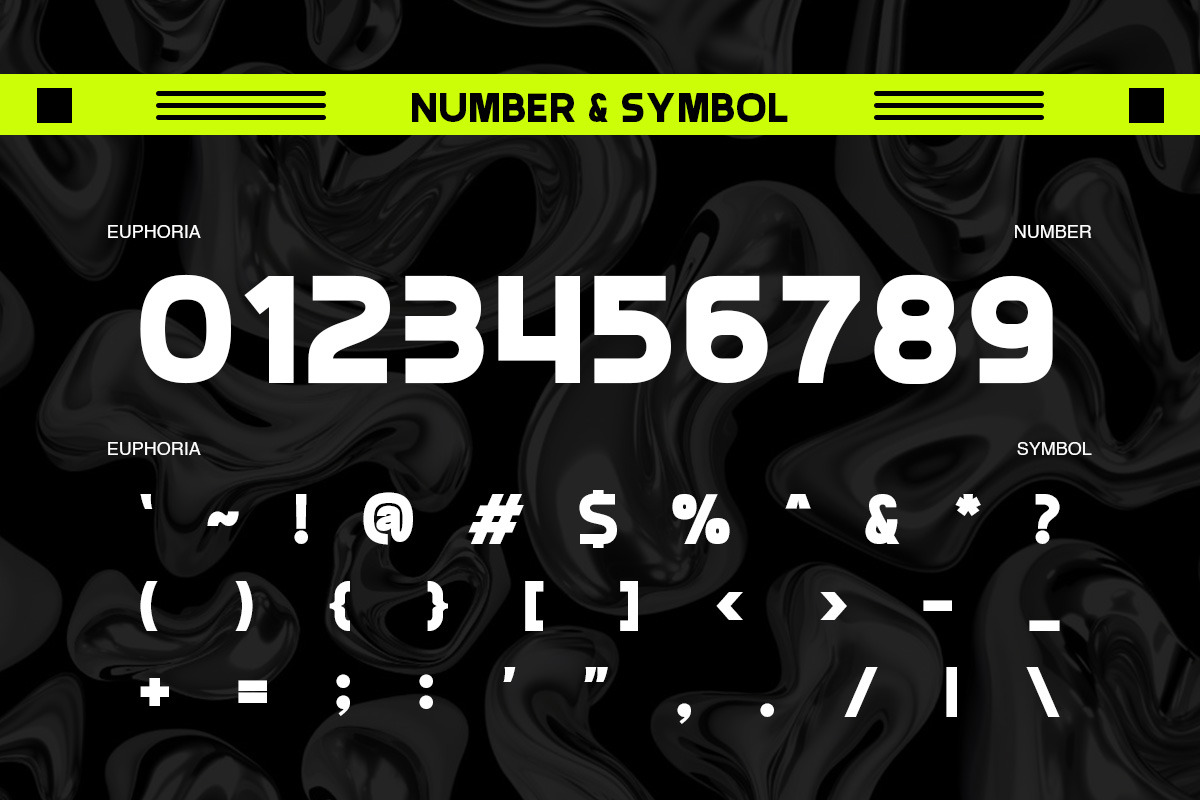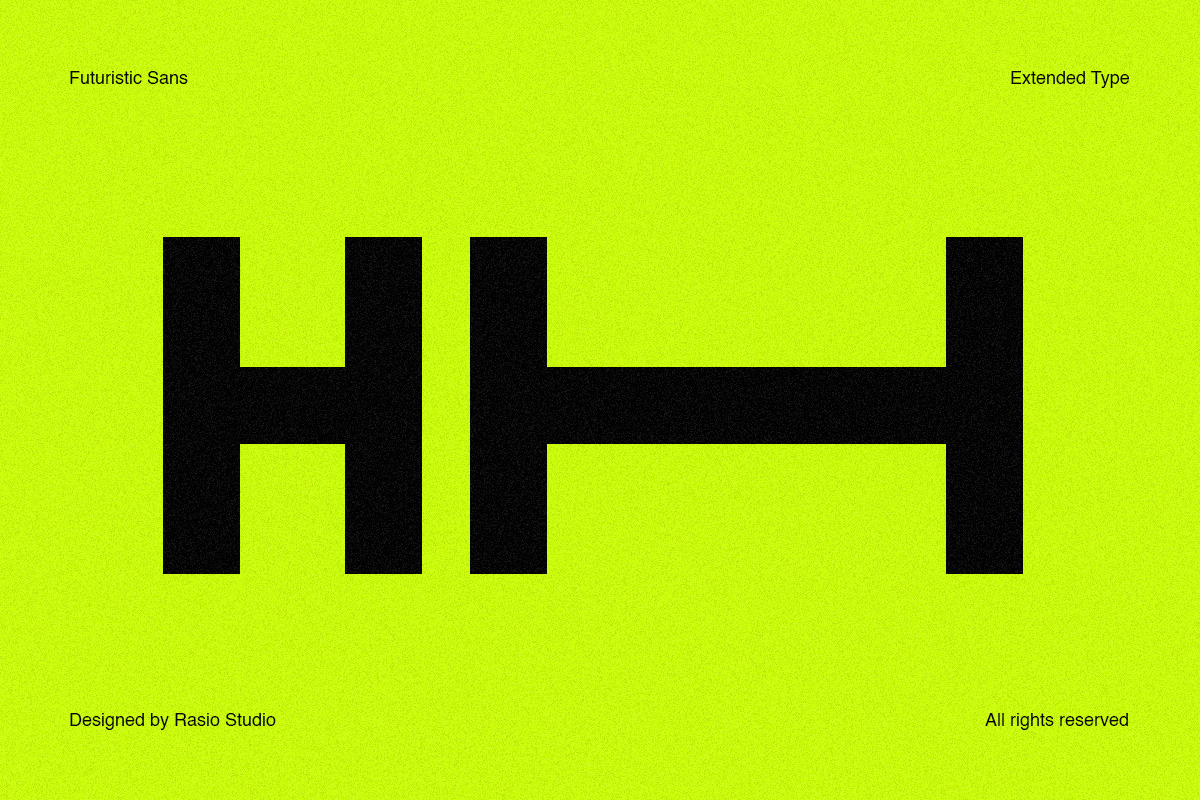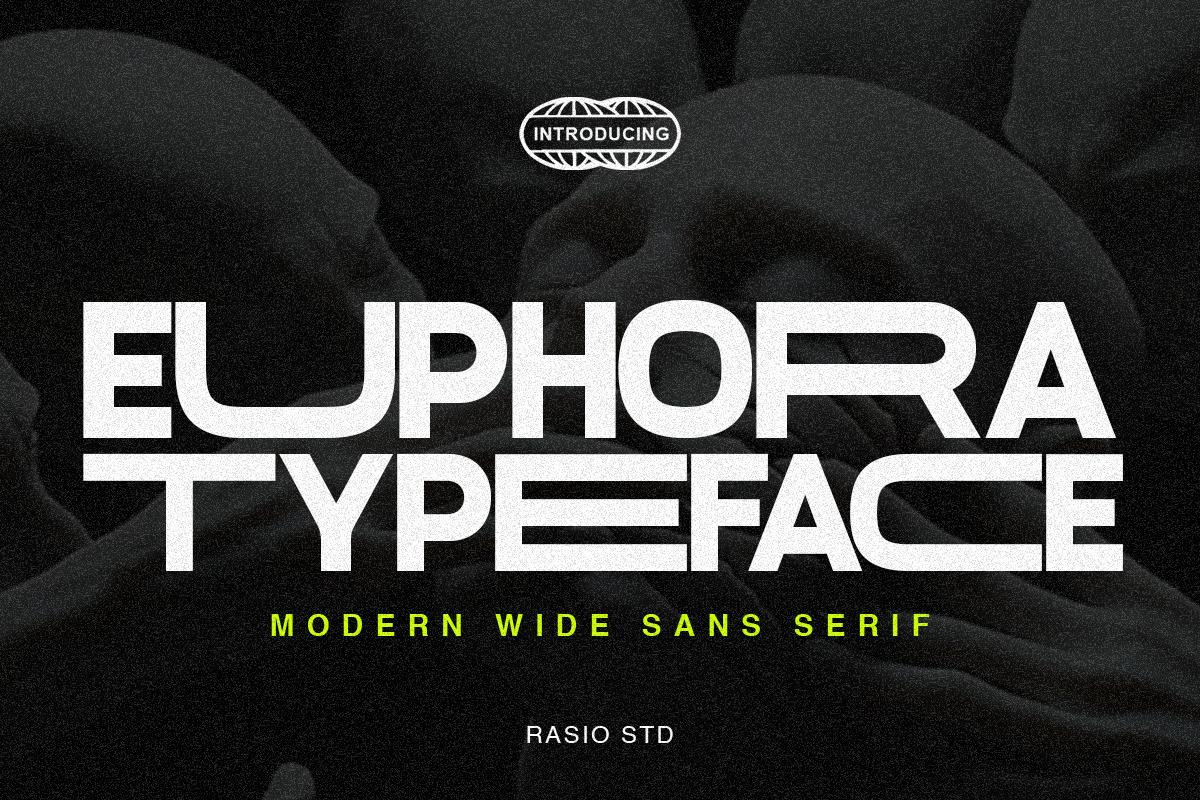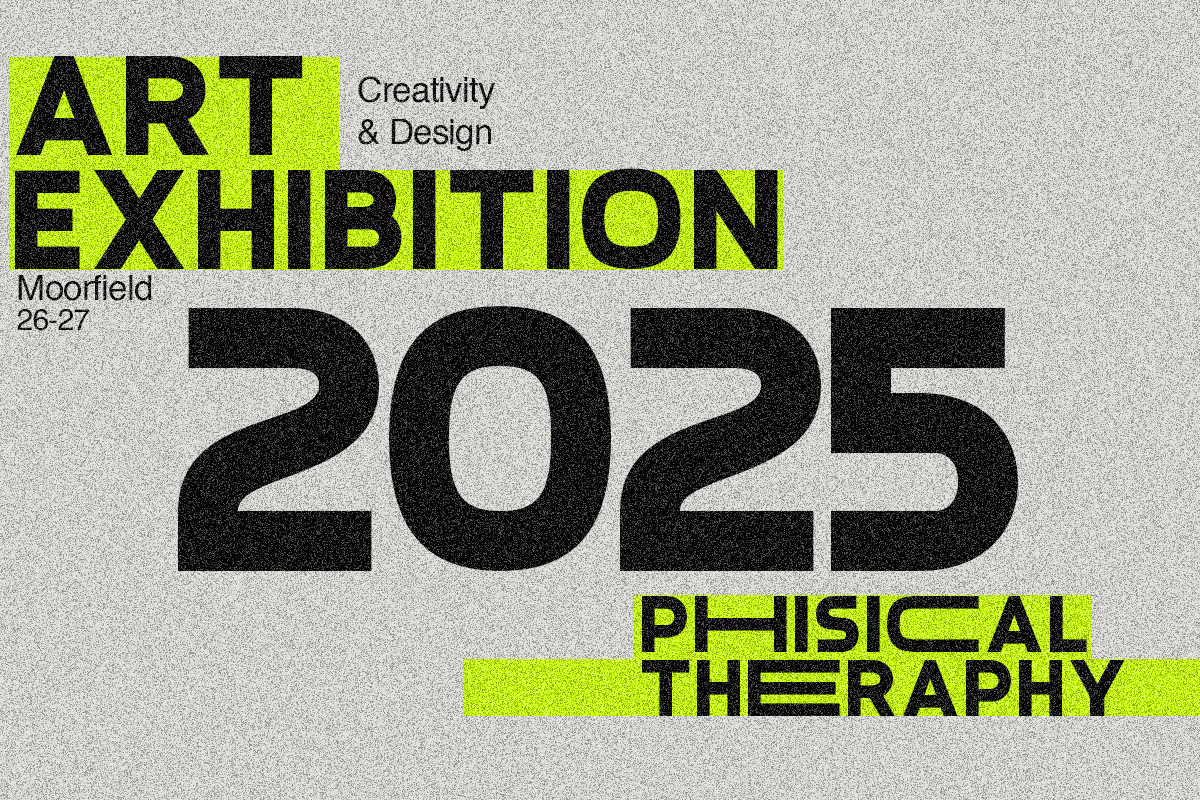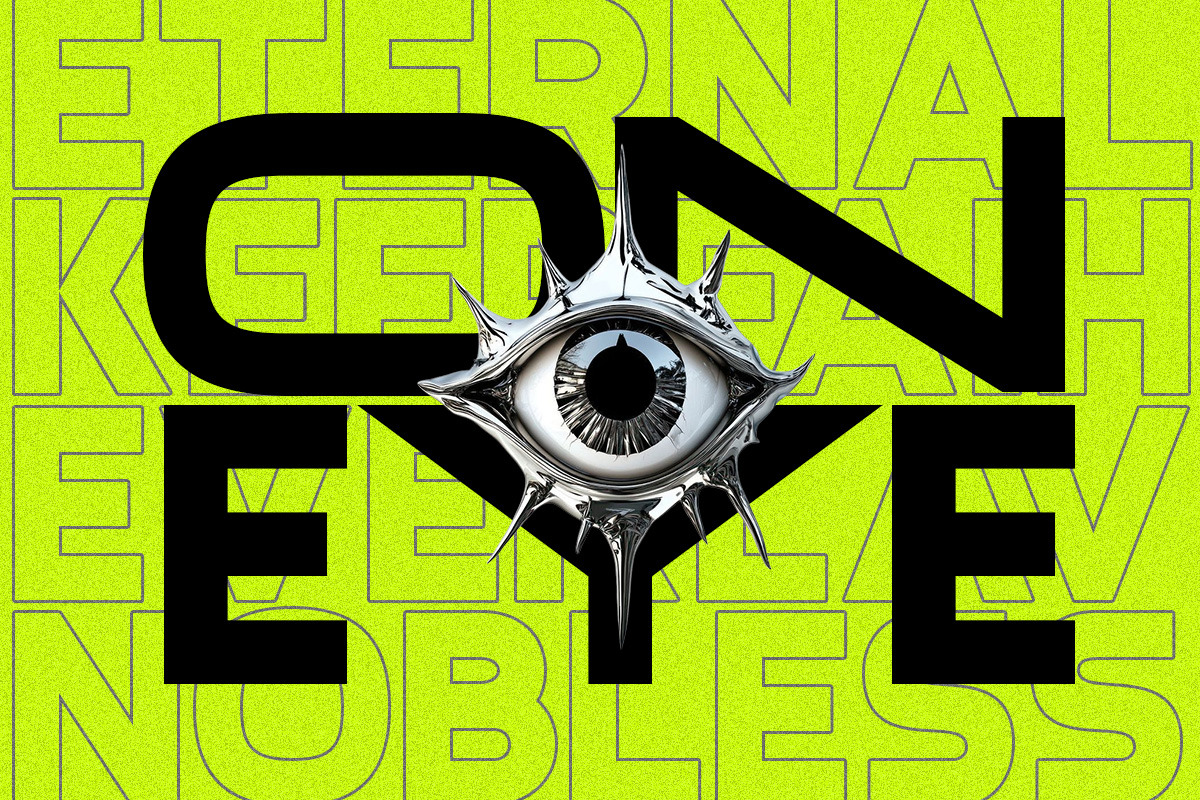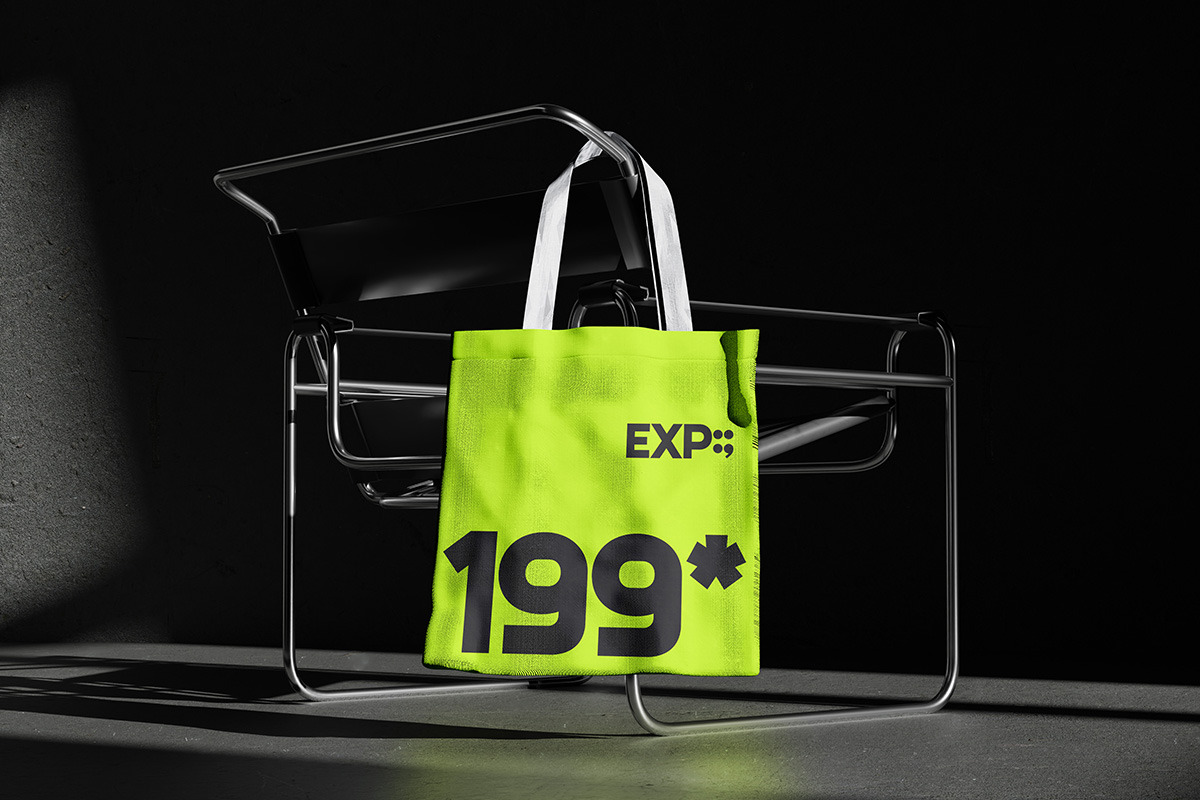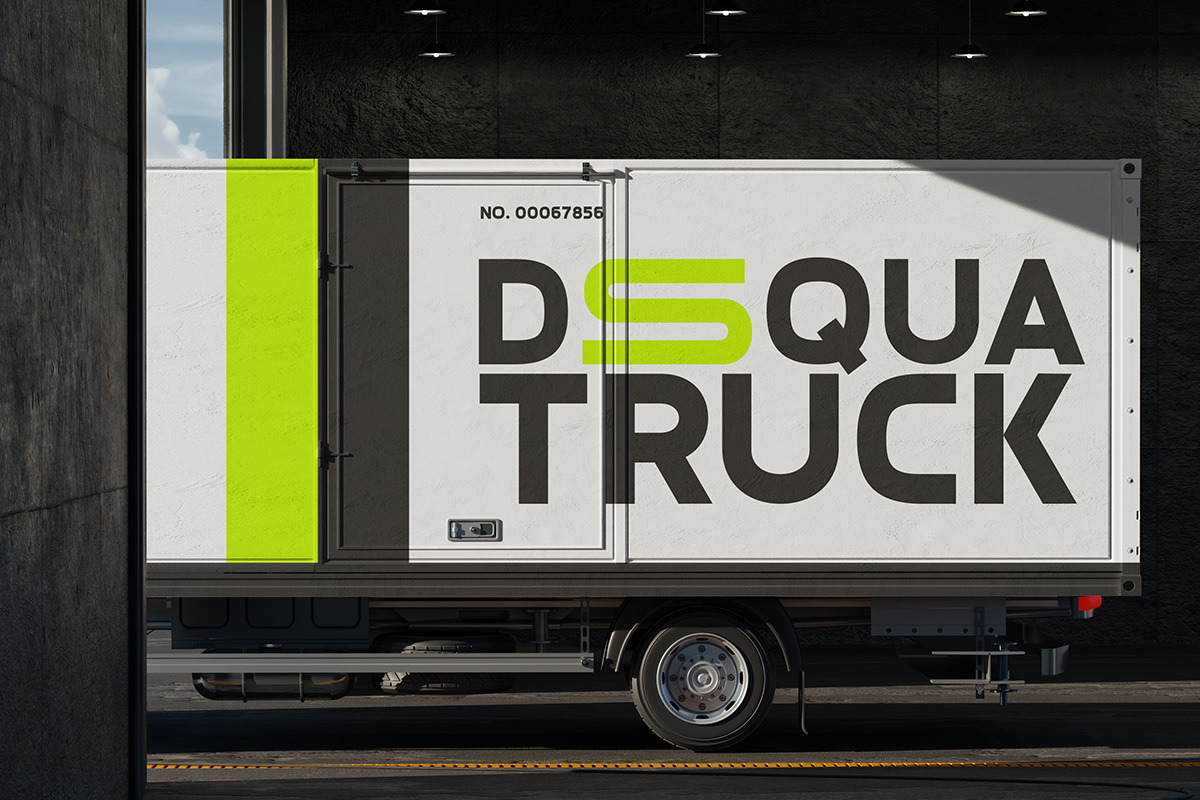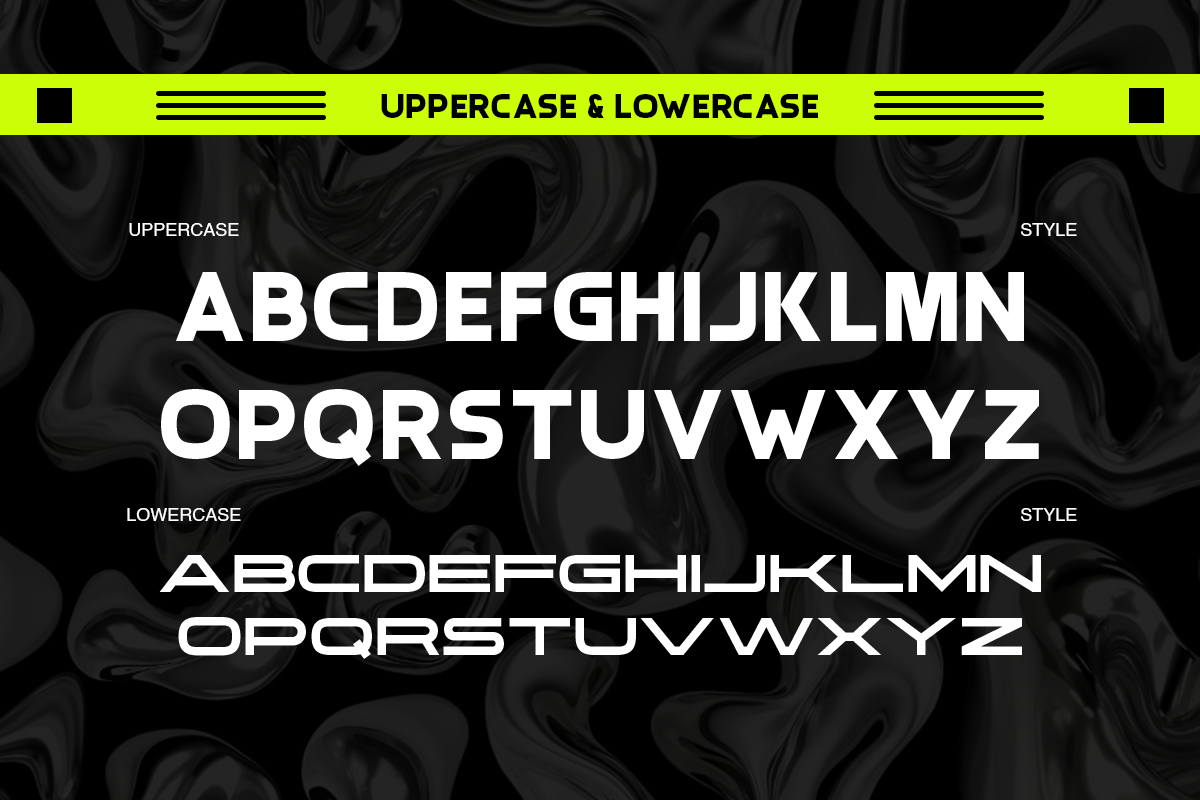
Euphora Typeface Wide Sans Font
Euphora is a modern wide sans serif typeface crafted for bold visual impact and futuristic expression. Designed with extended proportions, sharp geometric cuts, and strong horizontal emphasis, this typeface delivers a powerful contemporary presence. Its wide stance and confident letterforms make it ideal for large-scale typography, branding statements, and cutting-edge creative concepts.
Euphora is highly relevant for bold branding systems, tech startups, esports visuals, music posters, digital campaigns, fashion-forward graphics, and experimental editorial layouts. Its wide geometric structure makes it perfect for impactful headlines, logo design, album covers, promotional materials, and futuristic design concepts. Ideal for projects that demand strength, visibility, and modern edge.
- Modern wide sans serif with extended horizontal proportions
- Strong geometric construction with sharp, futuristic detailing
- Wide letterforms engineered for maximum headline impact
- Clean, uniform stroke weight for bold visual consistency
- Angular cuts and squared terminals for a tech-forward aesthetic
- Bold brand identity systems with a futuristic tone
- Tech startups and digital product branding
- Esports, gaming, and music promotional graphics
- Large-scale headlines and advertising campaigns
- Poster designs and experimental visual concepts
Unleash bold precision with Euphora modern wide sans built for impact